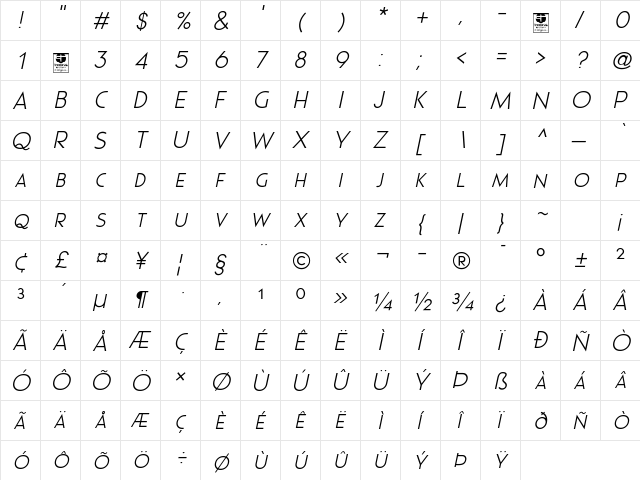
Pages Grotesque Light Demo Italic Font Preview
Pages Grotesque Light Demo Italic
Pages Grotesque Light Demo Italic Font Details
Design Context for Pages Grotesque Light Demo Typeface
Pages Grotesque Light Demo is a composed and adaptable typeface that performs quietly and consistently across a wide range of design contexts. The slanted form adds forward momentum and visual energy. The delicate stroke weight brings airiness and refinement to layouts.
Pro Tip: Use Pages Grotesque Light Demo for emphasis, pull quotes, and subheadings where its slanted energy can add rhythm to the layout.